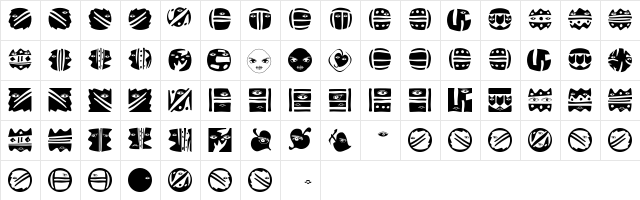
UseBats Regular
Design Context for UseBats Typeface
UseBats is a composed and adaptable typeface that performs quietly and consistently across a wide range of design contexts.